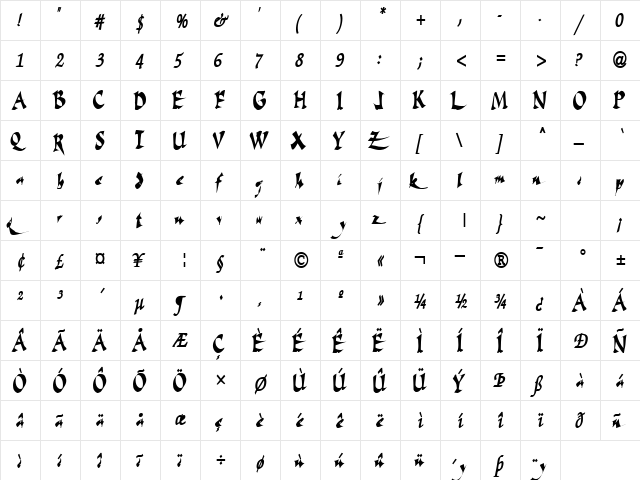
FateScriptText29 Regular
Design Context for FateScriptText29 Typeface
FateScriptText29 brings a calligraphic fluidity to the page — its connecting strokes and expressive curves give it an unmistakably human quality.
Font Pairing: Combine FateScriptText29 with a simple geometric sans for maximum contrast — the tension between flowing curves and clean structure is a classic typographic pairing.
Pro Tip: Pair FateScriptText29 with a clean sans-serif for supporting text. The contrast between fluid script and geometric structure creates an elegant typographic hierarchy.